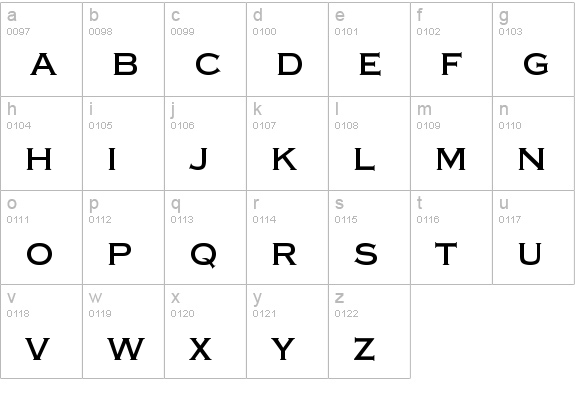
CopperplateEF-Medium Font Details
CopperplateEF-Medium is a balanced, medium-weight variant in the CopperplateEF typeface family \xE2\x80\x94 well suited to sub-headlines, navigation, and balanced editorial work.
CopperplateEF-Medium is a timeless and elegant font that exudes sophistication and professionalism. With its classic design and medium weight, this font is perfect for a wide range of design projects, from invitations to business cards to branding materials. The clean lines and sharp serifs of CopperplateEF-Medium make it a versatile choice for both print and digital applications. What sets CopperplateEF-Medium apart is that it is not only a high-quality font, but it is also free to download at FontsMarket.com. This means that you can access this premium font without having to spend a dime, making it a valuable resource for designers and creators looking to elevate their projects with a touch of class and elegance. Whether you're working on a personal project or a client's design, CopperplateEF-Medium is sure to add a touch of sophistication and polish.